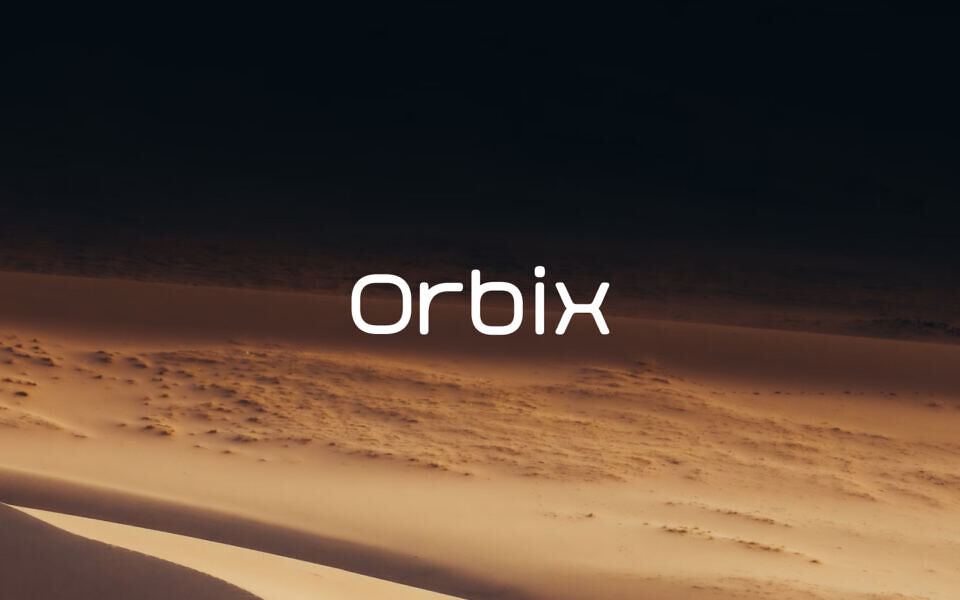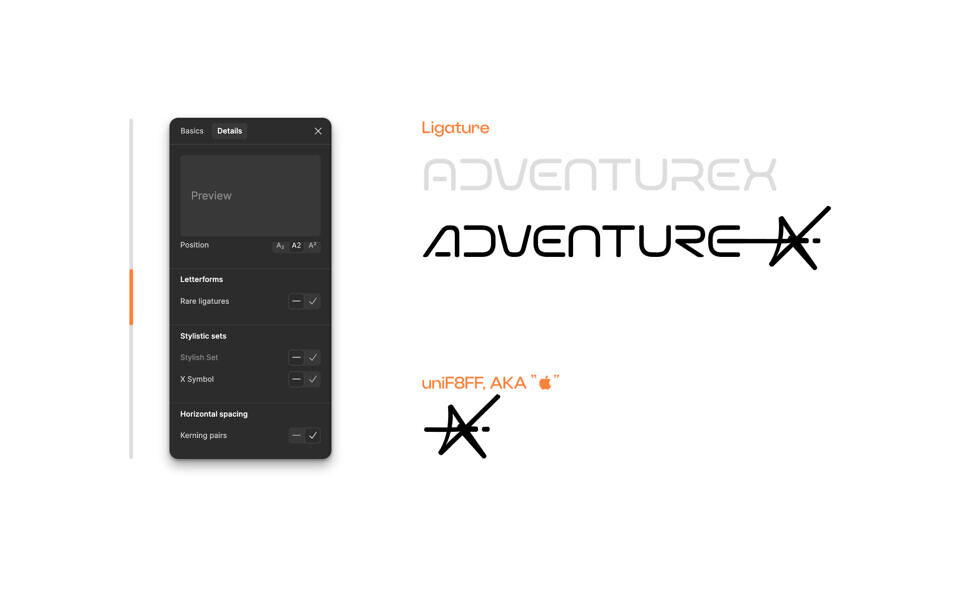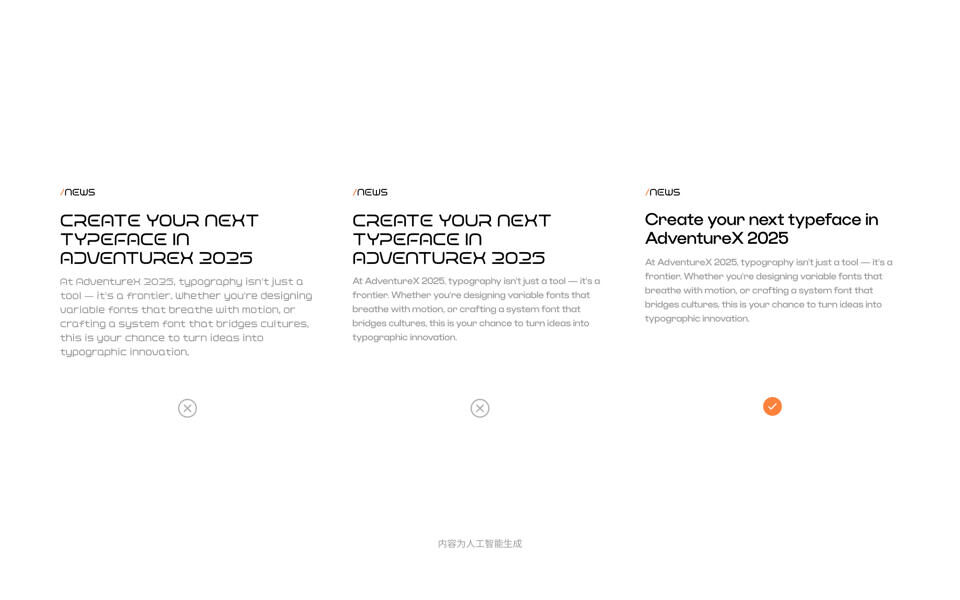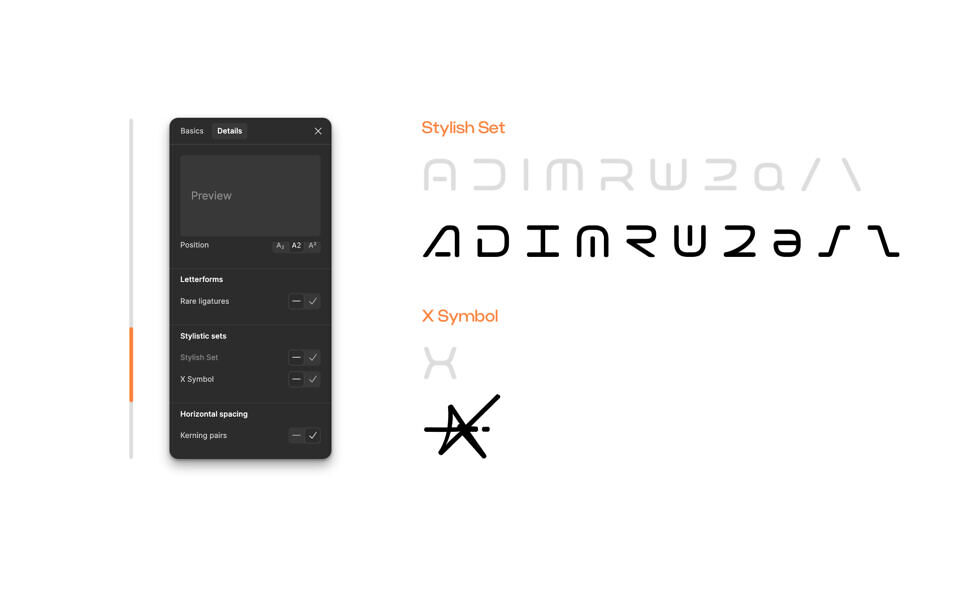
Orbix is a stylish, open-source typeface with rounded curves, created for AdventureX by Besign Foundry. It is based on a square-like proportion, but its curves reduce readability in long texts. The font is best used for short words or as a notation element in scenarios with fewer than five words.
To improve recognizability, all caps and eye-catching colors are recommended. The font supports 87 characters, including uppercase, lowercase, numbers, and basic symbols, and includes OpenType features for stylistic sets and brand ligatures.